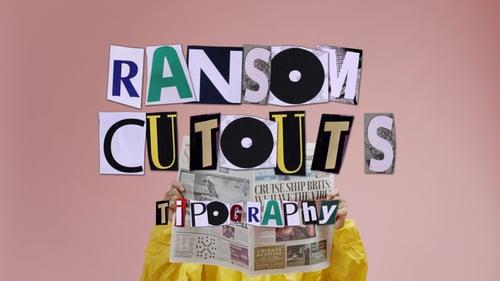
Animated Ransom Note Cutout Typography Letters Toolkit
This video template provides a comprehensive toolkit for creating authentic ransom-style typography animations for professional video projects. The design features an exceptionally diverse collection of individual letter cutouts, each meticulously crafted with unique textures, vibrant colors, and mismatched font styles that are highly reminiscent of classic magazine and newspaper clipping art. Every single character in this set is animated with its own distinct, slightly shaky motion profile that effectively adds to the gritty, analog aesthetic of the overall package. Creative editors can easily arrange these stylized cutout symbols to form impactful words and expressive phrases perfectly suited for music videos, cinematic title sequences, or edgy social media marketing content. The toolkit is fully comprehensive, including a wide array of uppercase and lowercase letters, functional numbers, and essential punctuation marks, all of which are designed to layer seamlessly over your own provided background footage or static images. With its distinctive mixed-media look and tactile, hand-crafted feel, this motion graphics project offers a versatile and creative way to add a realistic handmade, retro-grunge vibe to any modern digital production. Whether you are aiming for a high-intensity thriller look or an artistic collage style, these animated typography assets provide the necessary visual elements to make your text truly stand out.